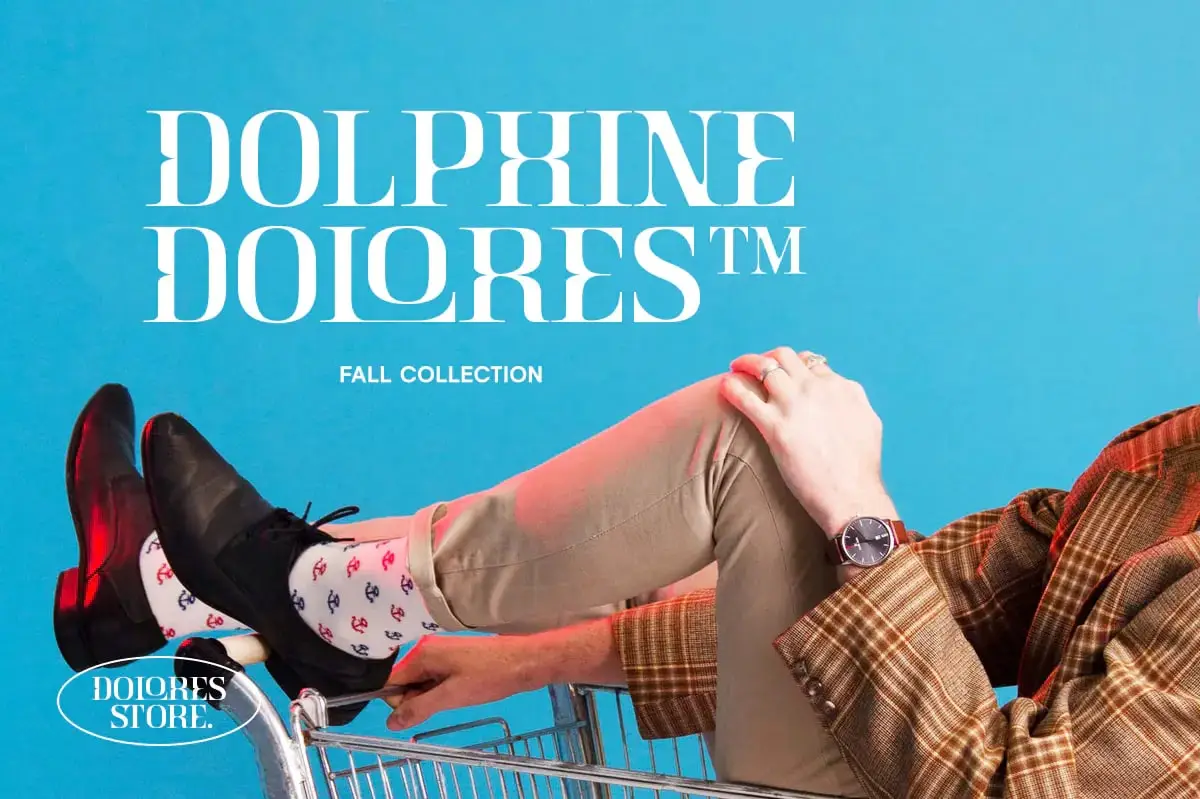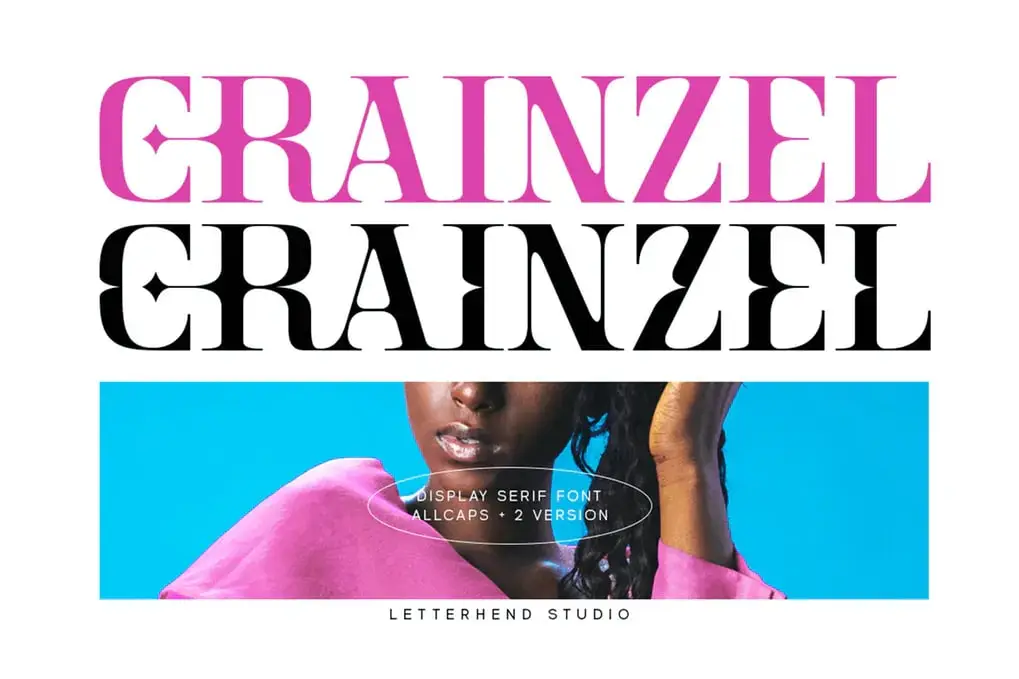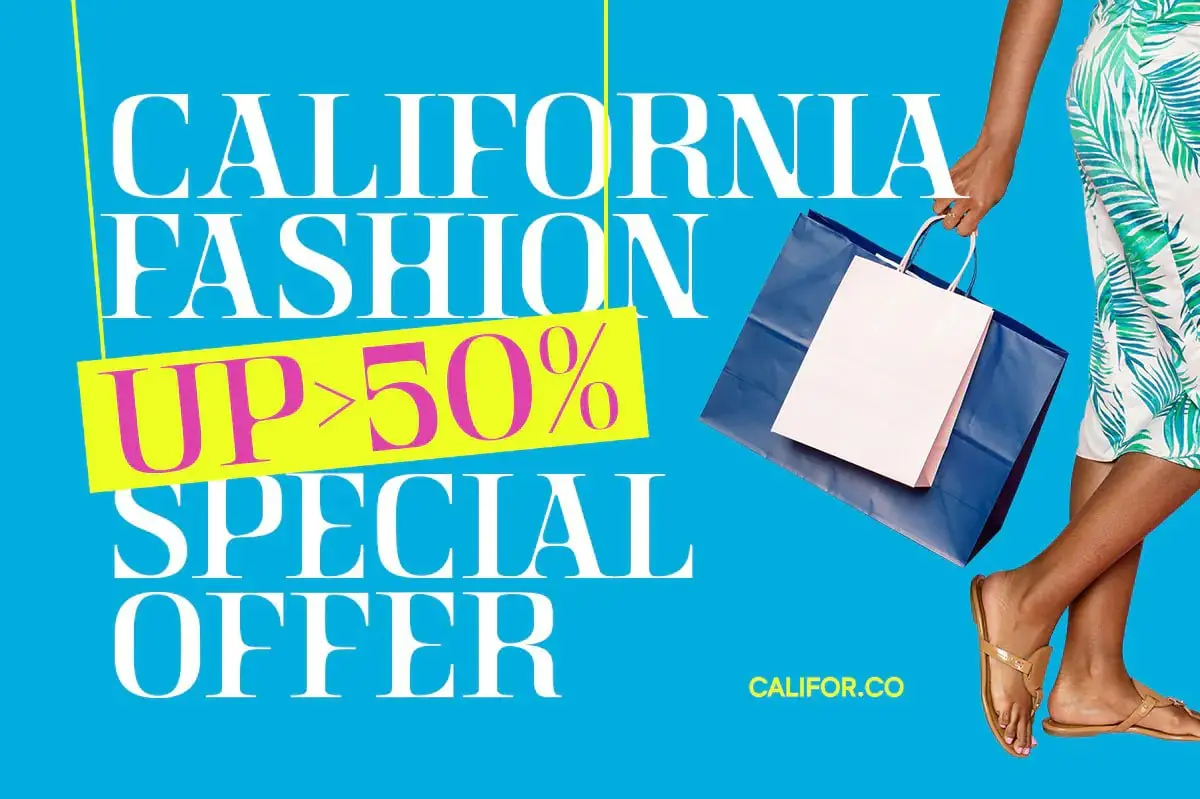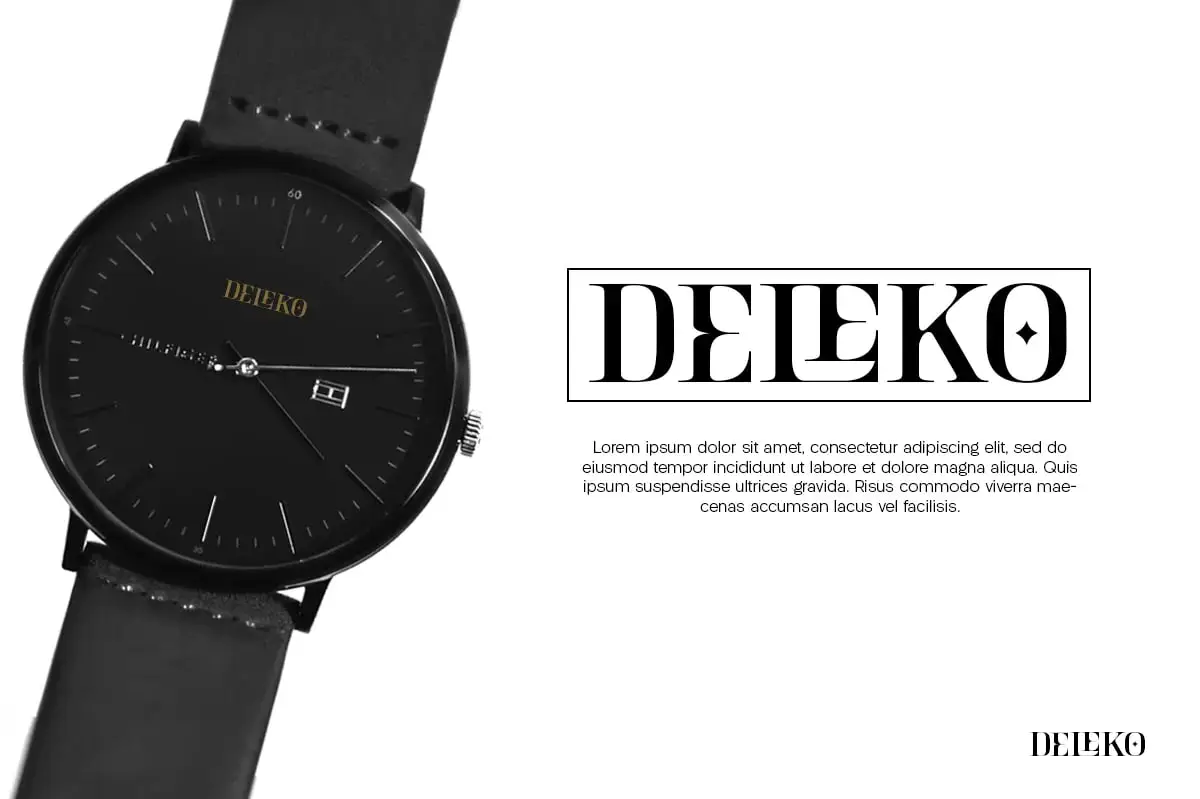
Crainzel Font
The Crainzel Font is a modern typeface that combines elegance with readability, making it perfect for a variety of design projects. With its unique character shapes and balanced proportions, this font is ideal for branding, logos, web design, and print materials.
Utilize the Crainzel Font for eye-catching headlines, elegant branding, or any project that requires a touch of sophistication.